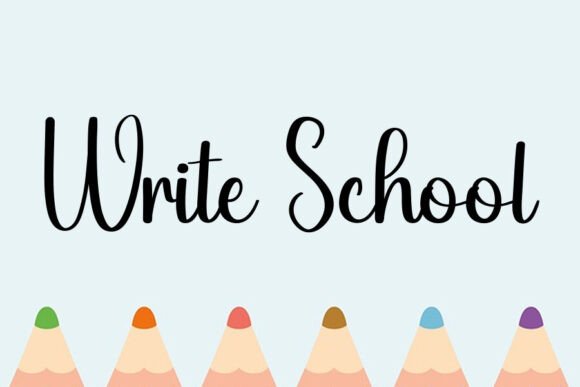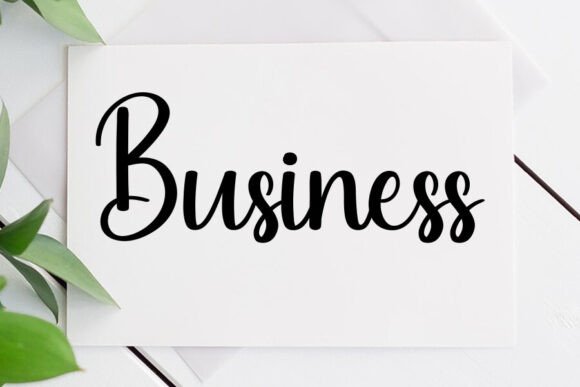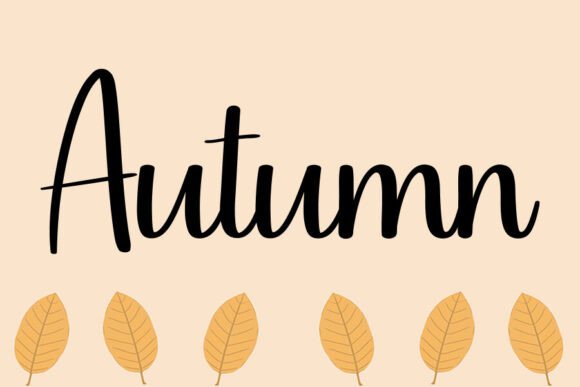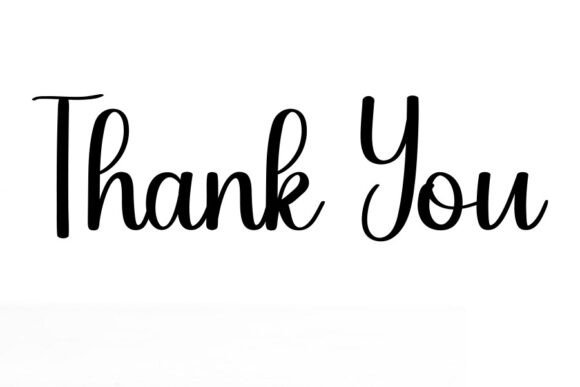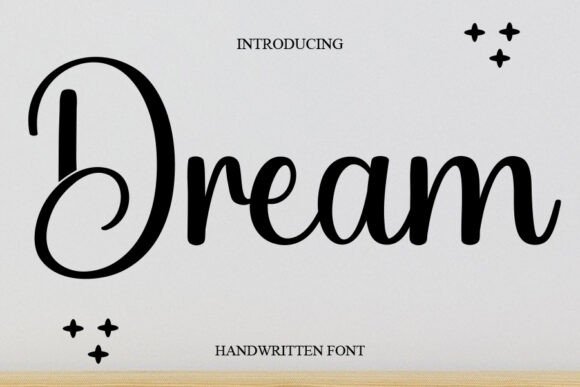
Dream Font: The Sweet and Elegant Handwritten Font for Your Design Needs
Are you looking for a font that can add a touch of elegance and romance to your designs? Look no further than the Dream Font! This beautiful, cursive handwritten font is perfect for a variety of design projects, from branding and logos to wedding materials and greeting cards. In this article, we’ll take a closer look at the Dream Font and explore its features, benefits, and uses.
What is Dream Font?
Dream Font is a sweet and cursive handwritten font that is designed to add a joyful and romantic touch to your designs. Its gentle and elegant strokes make it perfect for creating beautiful and eye-catching designs that will leave a lasting impression on your audience. Whether you’re a designer, crafty DIY enthusiast, or small business owner, the Dream Font is a versatile and stylish choice that can elevate your projects to the next level.
Features of Dream Font
The Dream Font has several features that make it an excellent choice for designers and crafters. Some of its key features include:
• Sweet and cursive handwritten style: The Dream Font has a beautiful, flowing script that is perfect for creating elegant and sophisticated designs.
• Gentle and elegant strokes: The font’s gentle strokes make it easy to read and add a touch of warmth to your designs.
• Versatile and adaptable: The Dream Font can be used for a wide range of design projects, from branding and logos to wedding materials and greeting cards.
• Fancy and elegant but still casual: The font’s unique style is both elegant and casual, making it perfect for designs that require a touch of sophistication without being too formal.
Benefits of Using Dream Font
Using the Dream Font in your designs can have several benefits, including:
• Adding a touch of elegance and romance: The font’s beautiful, cursive script can add a touch of sophistication and romance to your designs.
• Standing out from the crowd: The Dream Font’s unique style can help your designs stand out from the crowd and leave a lasting impression on your audience.
• Perfect for branding and marketing: The font’s elegant and sophisticated style makes it perfect for branding and marketing materials, such as logos, business cards, and brochures.
• Easy to read and use: The font’s gentle strokes make it easy to read and use, even for small text sizes.
Uses of Dream Font
The Dream Font is a versatile font that can be used for a wide range of design projects, including:
• Branding and logos: The font’s elegant and sophisticated style makes it perfect for creating beautiful and memorable logos.
• Wedding materials: The font’s romantic and elegant style makes it perfect for wedding invitations, wedding cards, and other wedding materials.
• Greeting cards: The font’s gentle and elegant strokes make it perfect for creating beautiful and heartfelt greeting cards.
• Fashion and lookbook: The font’s stylish and sophisticated style makes it perfect for fashion designs, such as lookbooks and catalogs.
• Marketing and promotion: The font’s elegant and sophisticated style makes it perfect for marketing materials, such as brochures, flyers, and posters.
In conclusion, the Dream Font is a beautiful and versatile font that can add a touch of elegance and romance to your designs. Its gentle and elegant strokes make it perfect for a wide range of design projects, from branding and logos to wedding materials and greeting cards. Whether you’re a designer, crafty DIY enthusiast, or small business owner, the Dream Font is a stylish and sophisticated choice that can elevate your projects to the next level.